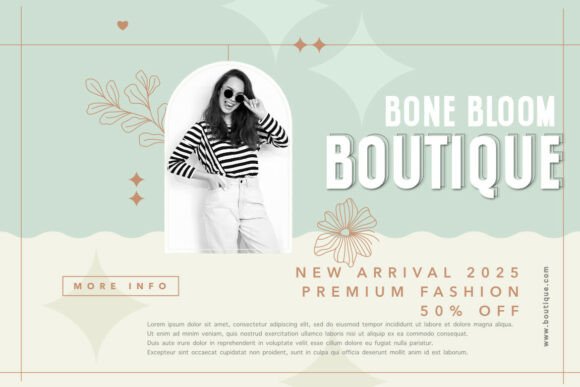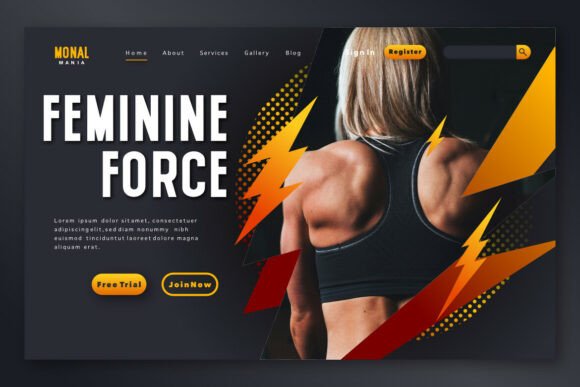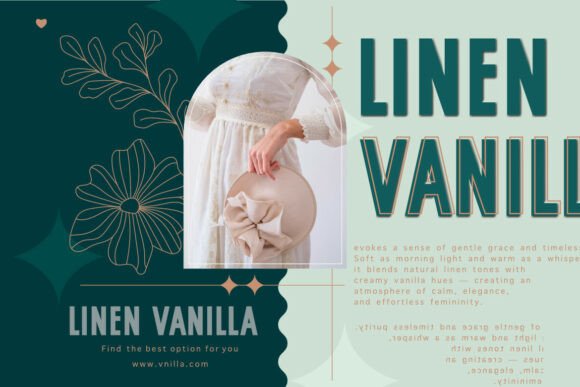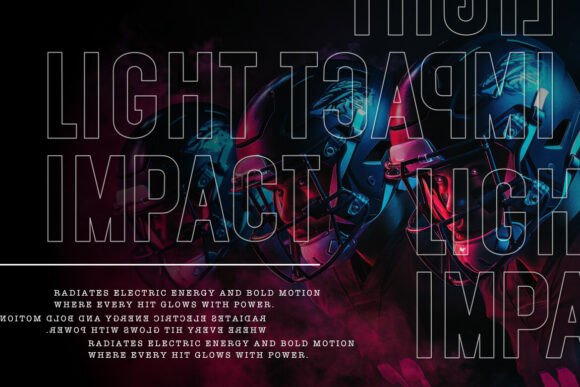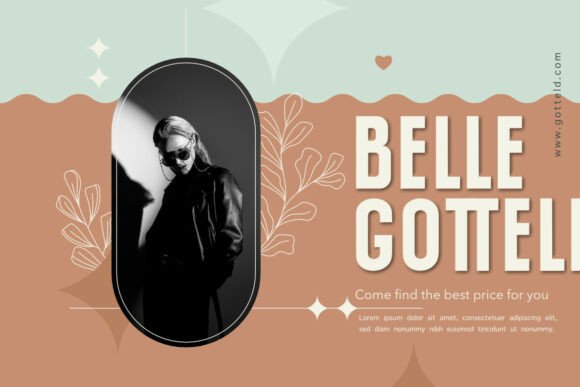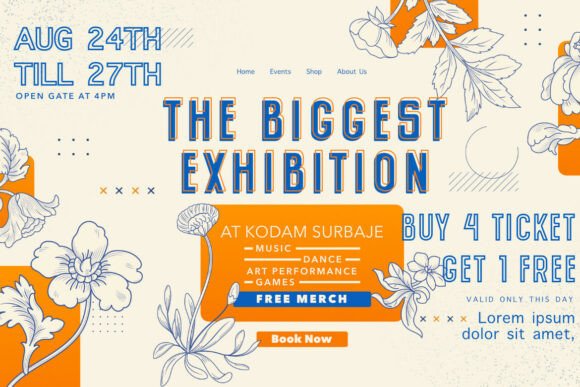
Introducing Behenley Font: The Epitome of Modern Confidence and Urban Sophistication
In the realm of typography, few fonts manage to strike a balance between modernity, confidence, and sophistication. Behenley Condensed Sans Serif Font is one such typographic marvel that seamlessly blends bold urban aesthetics with a contemporary edge. Its tall, clean letterforms and compact proportions are specifically designed to create a powerful visual impact, making it the perfect choice for designs that demand strength, structure, and a touch of elegance.
Inspiration from City Architecture and Contemporary Fashion
Behenley Font draws its inspiration from the dynamic interplay of city architecture and contemporary fashion. The urban landscape, with its sleek skyscrapers, avant-garde structures, and bustling streets, is a testament to human innovation and progress. Similarly, contemporary fashion, with its emphasis on clean lines, minimalism, and bold statements, reflects the modern individual’s quest for simplicity and sophistication. Behenley Font encapsulates these elements, distilling them into a typographic experience that is both assertive and refined.
Key Features of Behenley Font
Behenley Font boasts an impressive array of features that make it an indispensable tool for designers and crafters. Some of its key features include:
- Uppercase & Lowercase: A comprehensive set of uppercase and lowercase letters, ensuring versatility and flexibility in your designs.
- Numerals & Punctuation: A wide range of numerals and punctuation marks, allowing for precise control and creativity in your typography.
- Multilingual Support: Support for multiple languages, making Behenley Font an excellent choice for global brands and projects.
- PUA Encoded & OpenType Features: PUA encoding and OpenType features provide advanced typographic capabilities, enabling you to push the boundaries of creative expression.
Suitable Applications for Behenley Font
Behenley Font’s unique blend of modern confidence and urban sophistication makes it an ideal choice for a wide range of design applications. Some of the most suitable uses for Behenley Font include:
- Fashion & Editorial Design: Elevate your fashion editorials, brand campaigns, and magazine layouts with Behenley Font’s sleek, contemporary aesthetic.
- Branding & Logo Typography: Create bold, memorable logos and brand identities that exude confidence and sophistication.
- Magazine Headlines: Grab attention with Behenley Font’s striking, condensed letterforms, perfect for magazine headlines and section titles.
- Posters & Signage: Make a lasting impression with Behenley Font’s powerful, assertive style, ideal for posters, signage, and outdoor advertising.
- Modern Advertising Campaigns: Bring a touch of urban sophistication to your advertising campaigns, product launches, and promotional materials.
In conclusion, Behenley Font is a typographic masterpiece that embodies the perfect blend of modern confidence, urban sophistication, and creative expression. Its tall, clean letterforms, compact proportions, and comprehensive feature set make it an indispensable tool for designers and crafters seeking to elevate their designs. Whether you’re working on fashion editorials, branding projects, or advertising campaigns, Behenley Font is sure to leave a lasting impression.
With its versatility, flexibility, and sheer typographic excellence, Behenley Font is poised to become a go-to choice for designers and crafters worldwide. Experience the power of Behenley Font and discover a new world of creative possibilities.